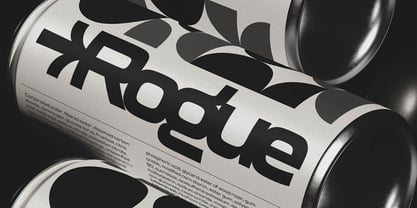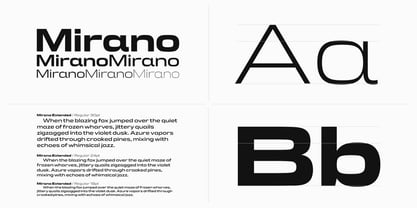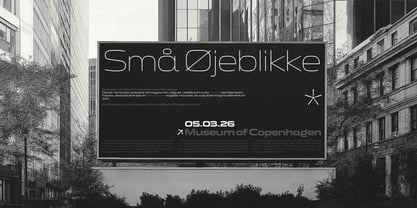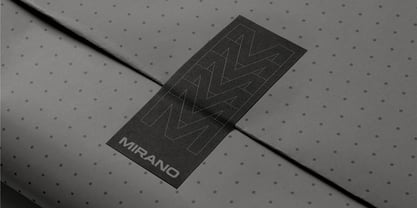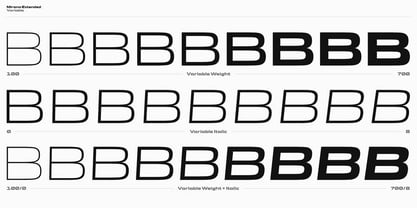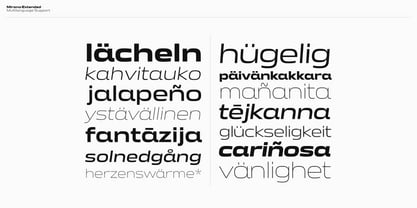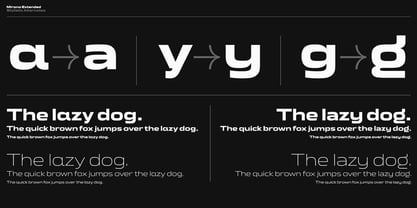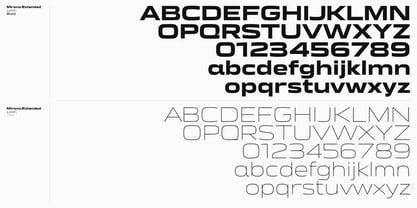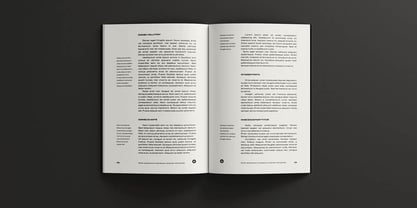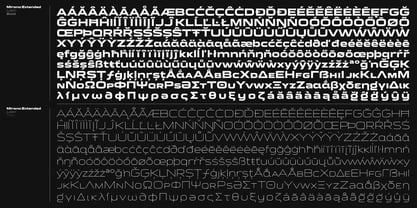
Mirano Extended
The Mirano Extended Font Family was designed by Nicola Manzari, Bruno Pierini and published by Unio Creative Solutions. Mirano Extended contains 13 styles and family package options. More about this family
Mirano is a variable typeface that channels the charm of automotive history into a crisp, contemporary voice. It starts from a very specific reference: the iconic lettering associated with the most famous German “star” brand and one of its most recognizable, trend‑defining off‑road vehicles, then pushes that visual code into a wider, more modern system designed for today’s branding and interface demands. Built on a deep study of Aldo Novarese’s Eurostile, Mirano extends the concept further—reimagining its geometric, engineered logic with a more expansive stance, sharper rhythm, and a cleaner contemporary finish. The result is a family that feels mechanical yet premium: confident in headlines, stable in any design system. Mirano plays across a variable weight axis, ranging from Thin to Bold, and is also released as 6 static weights for maximum compatibility. Each weight is paired with a matching italic, engineered to keep the same forward momentum and compact efficiency of the roman while adding speed and attitude. Packed with professional OpenType features—ligatures, stylistic sets, case‑sensitive glyphs, and positional numerals—Mirano gives designers full control to tune form, rhythm, and fuel: from “0 to 100” acceleration in visual impact, when needed. Engineered to stand out and built to last, Mirano gives designers full control and power.